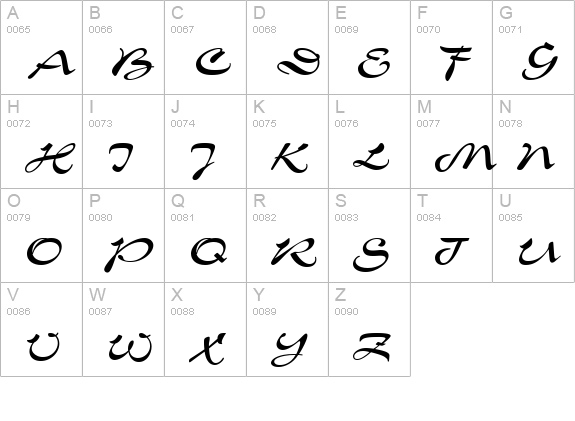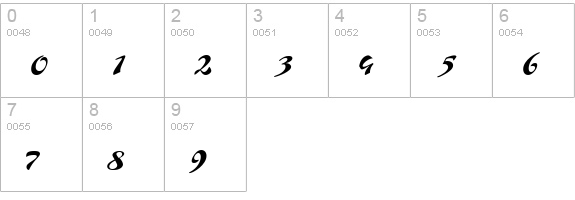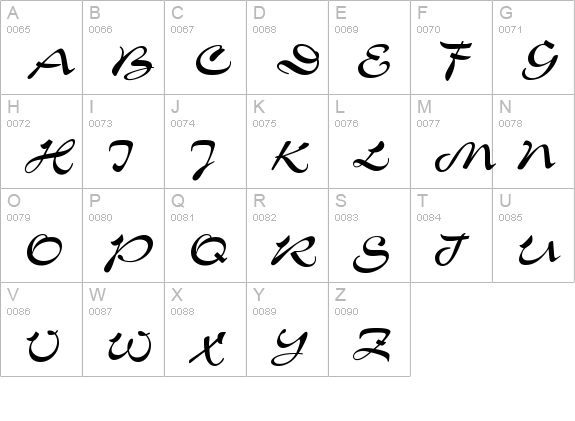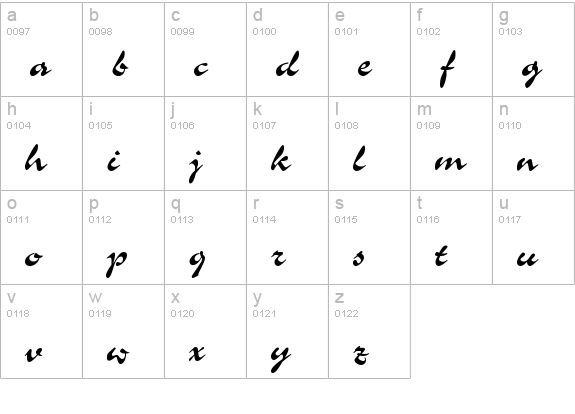
Corrida Cyrillic Font Details
Corrida Cyrillic is a stunning and elegant font that effortlessly combines classic style with a modern twist. This versatile typeface features sleek lines and unique flourishes that add a touch of sophistication to any design project. With its bold and eye-catching appearance, Corrida Cyrillic is perfect for creating impactful headlines, branding materials, and more. What makes Corrida Cyrillic even more appealing is that it is available for free download at FontsMarket.com. This means that you can easily access this beautiful font to elevate your creative projects without any cost. Whether you're a designer, blogger, or business owner, Corrida Cyrillic is a must-have addition to your font collection. Don't miss out on the opportunity to enhance your designs with this exquisite typeface - download Corrida Cyrillic today for free!